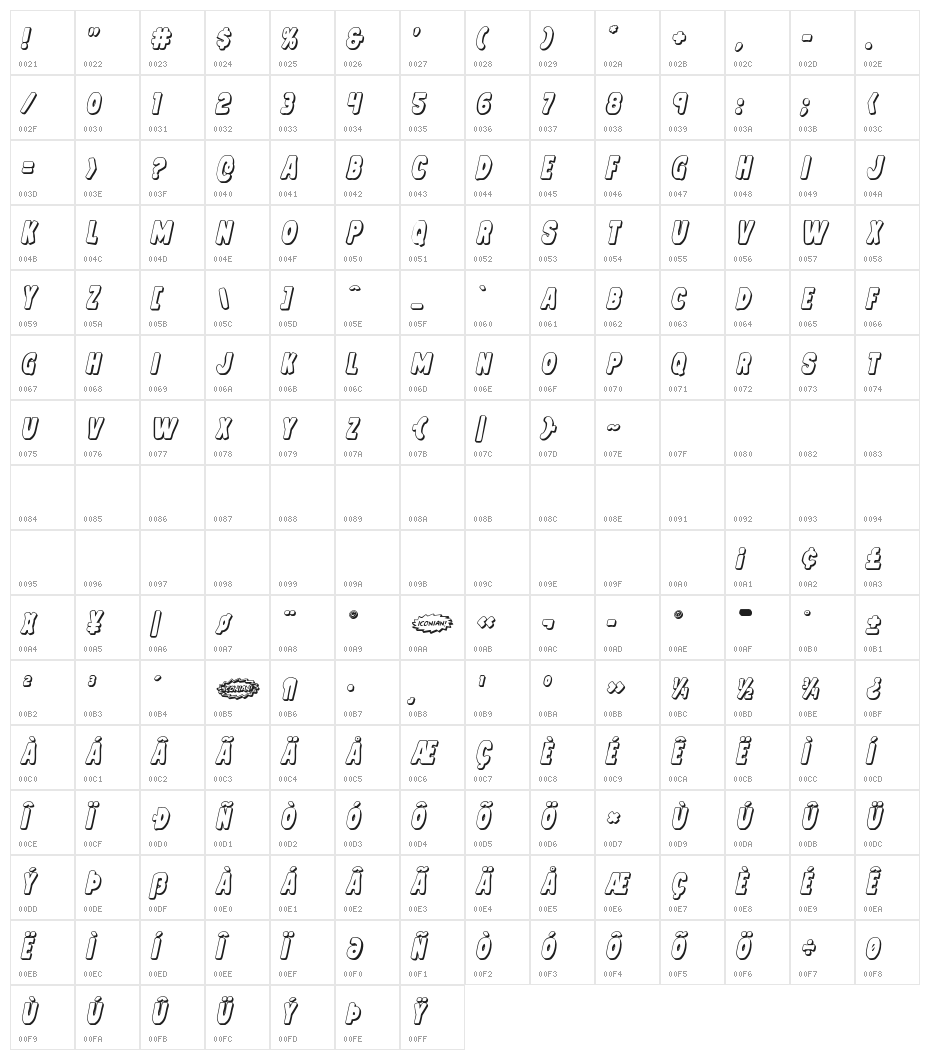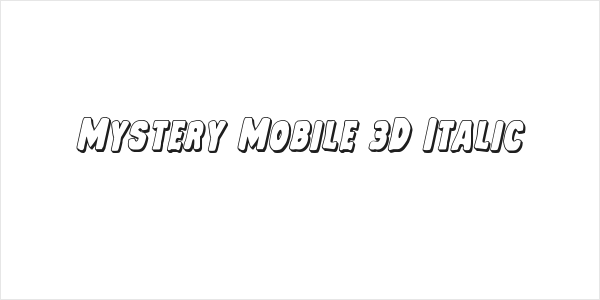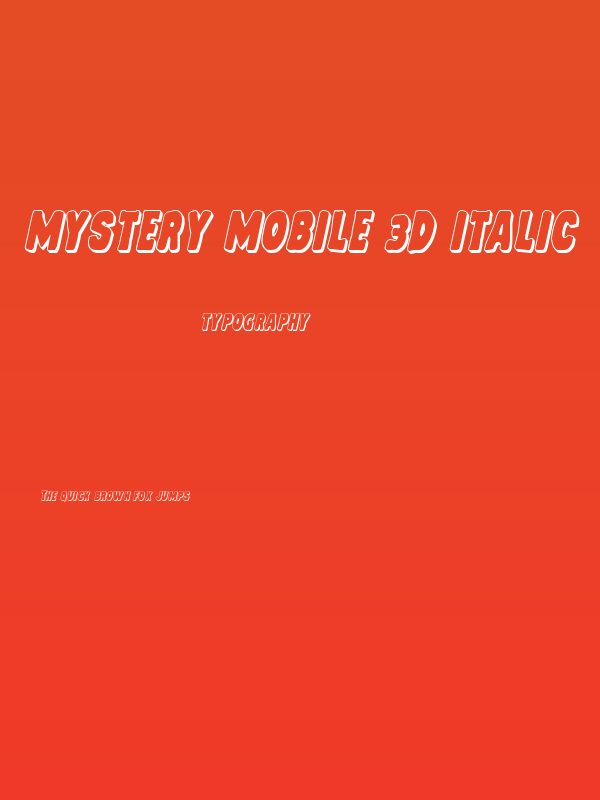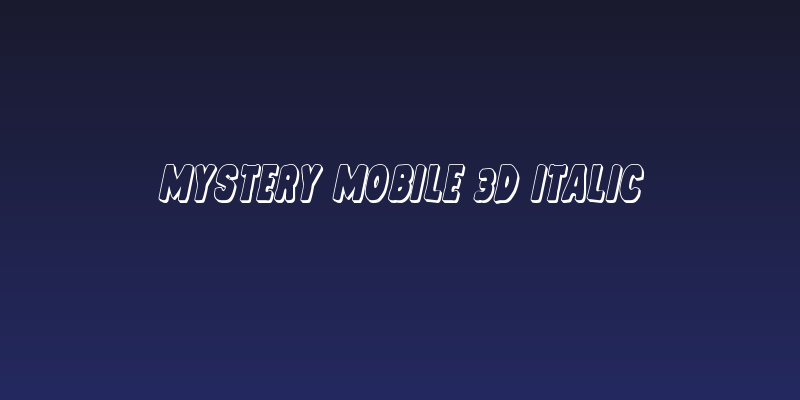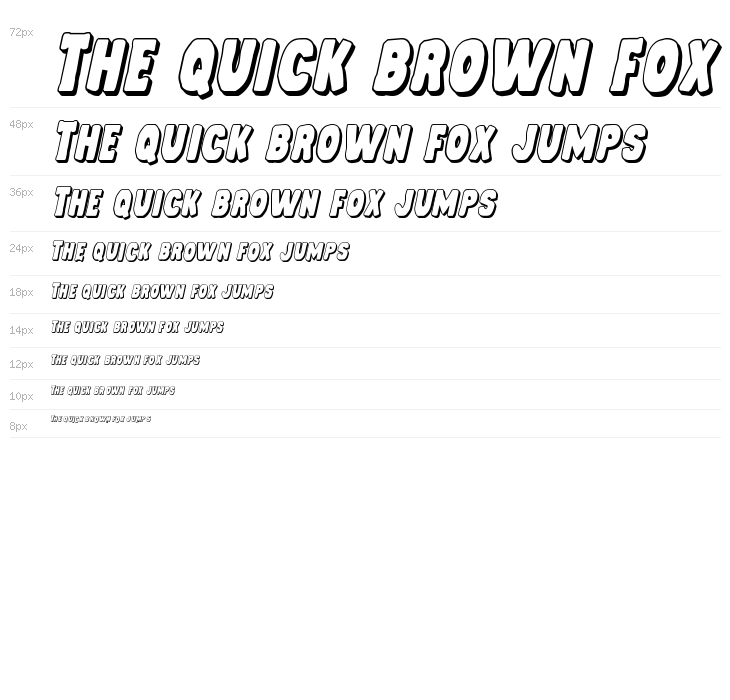
Mystery Mobile 3D Italic Font
Mystery Mobile 3D Italic Description
This font features a bold, three-dimensional style with a playful and dynamic appearance. The characters are italicized, giving them a forward-leaning posture that adds to the sense of movement. The thick, rounded edges and shadowing effect create a sense of depth, making the letters appear as if they are popping off the page. This font is highly legible and eye-catching, making it suitable for attention-grabbing headlines or creative projects. The spacing between characters is relatively tight, enhancing the compact and cohesive look of the text.
| Overall Style | Modern, Playful |
| Proposed Projects | Ideal for comic book titles, children's book covers, playful branding, and advertising campaigns. |